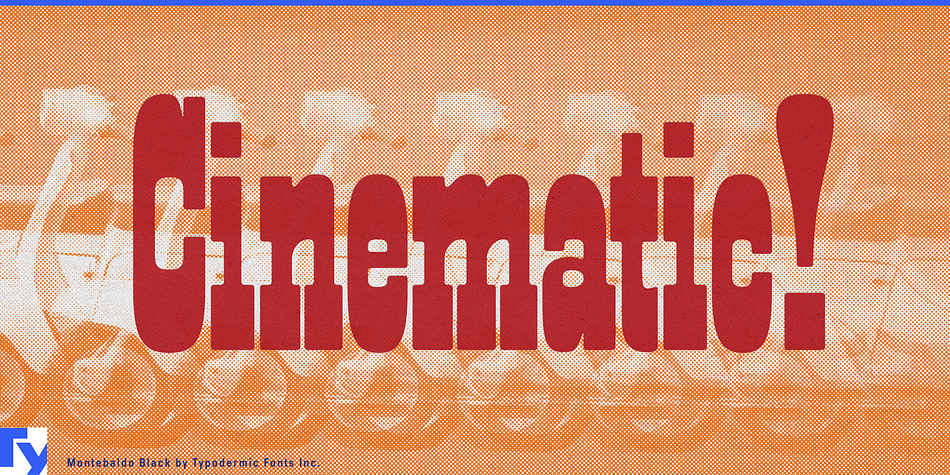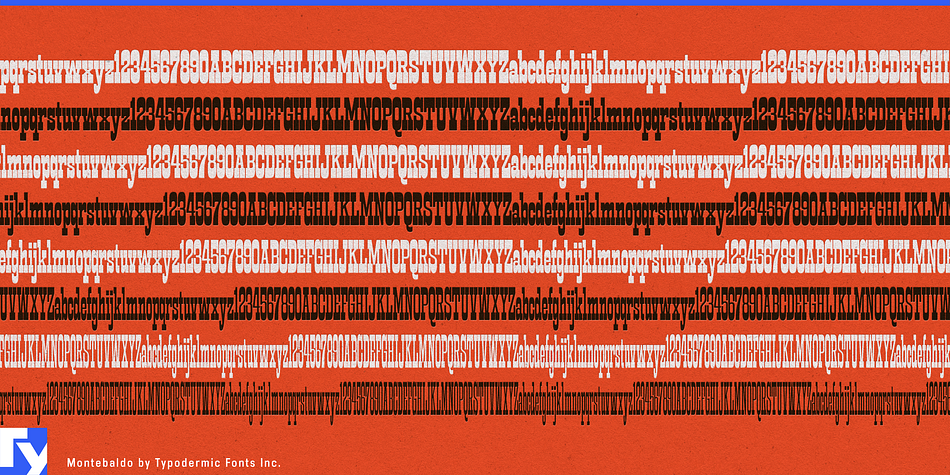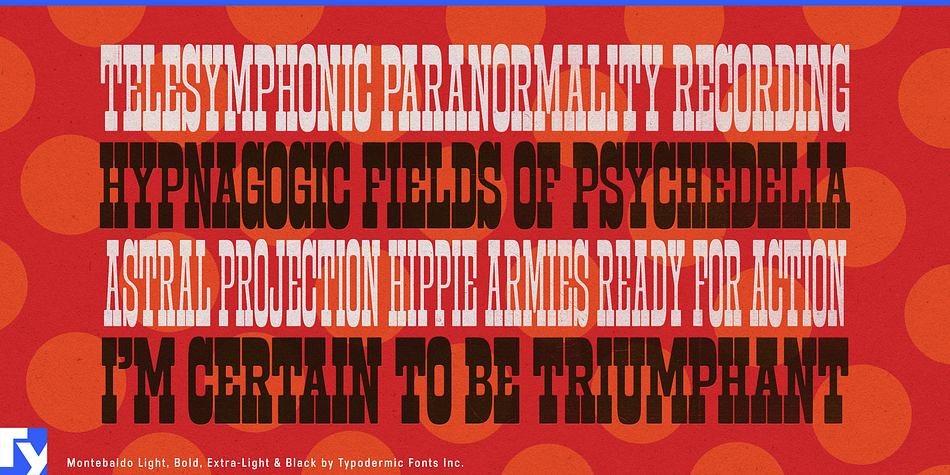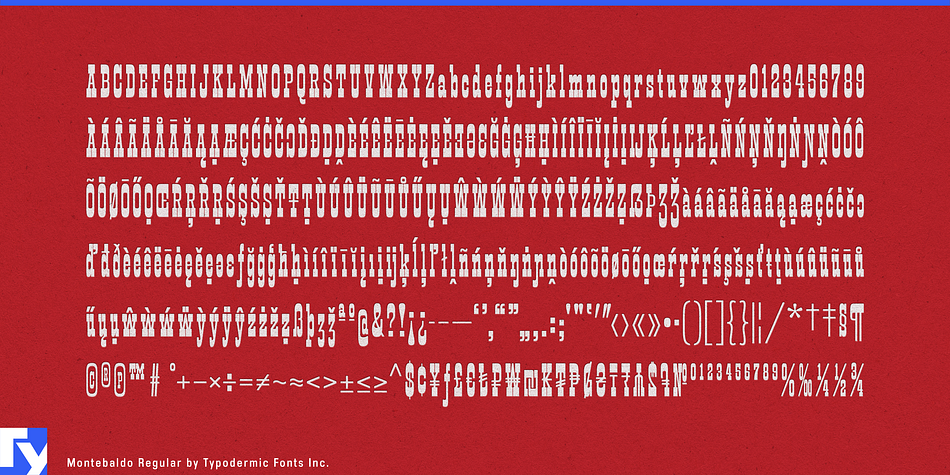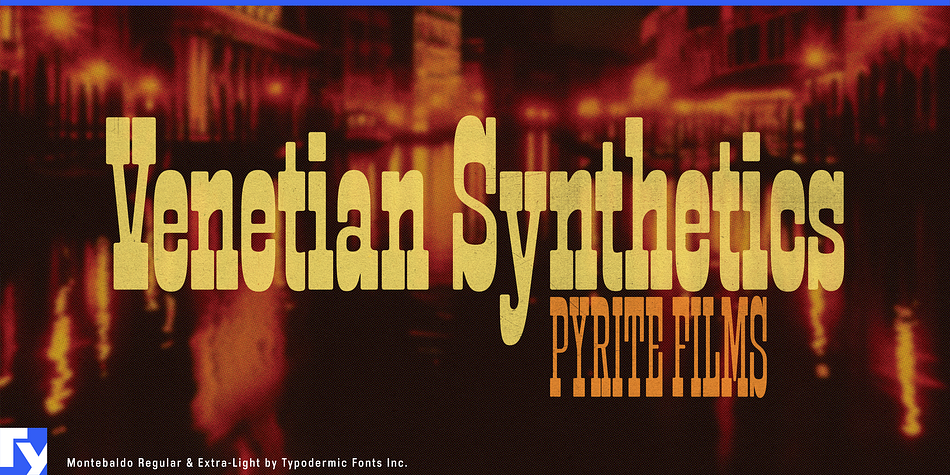
Montebaldo
Designed by Ray Larabie, Montebaldo is a wood type font family. This typeface has eight styles and was published by Typodermic Fonts Inc.
Step into the cinematic allure of 1960s with Montebaldo, a typeface that captures the spirit of an era where every frame was a masterpiece. From Typodermic Fonts, Montebaldo is an inverse slab serif that brings the past into the present with its bold contours and elegant serifs.
With eight versatile styles ranging from Black, with its heavy, exaggerated slabs, to an ultra-compressed, super thin style, Montebaldo offers a dynamic range that evokes the mood of cinematic classics. Its beefy serifs and ultra-tight spacing pay homage to the vintage photo-typositor or dry transfer lettering, bringing an authentic analog quality to contemporary digital design.
Montebaldo’s corners are softened with precision, making it not only a typeface ideal for compact, attention-grabbing headlines but also spectacular in close-ups. This typeface is perfect for titles that require a touch of drama and a nod to classic style, ensuring that your words not only speak but also captivate.
Embrace the nostalgia of a bygone era with Montebaldo. Whether you’re crafting titles for a film, designing a poster, or creating a headline that demands impact, Montebaldo brings a slice of cinematic flavor to your design.